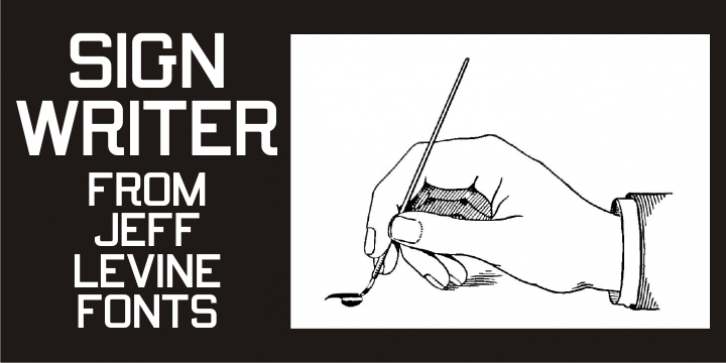
Sign Writer JNL was designed by Jeff Levine and published by Jeff Levine. Sign Writer JNL contains 1 style.
Sign Writer JNL was found within the pages of an early 1900s manual on the art of sign lettering and is a style typical of those times.